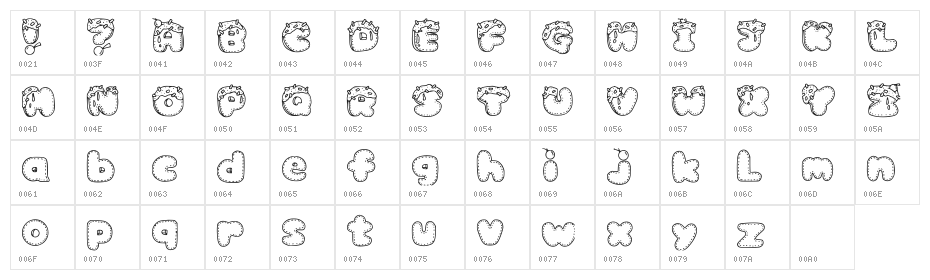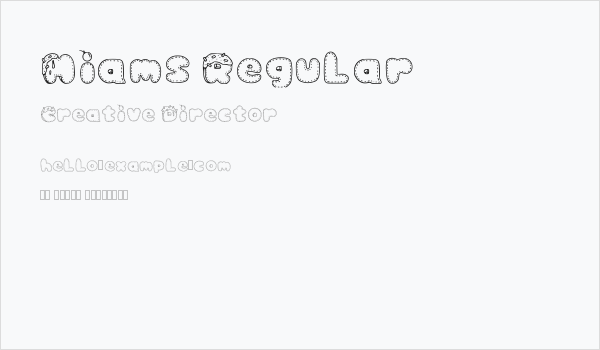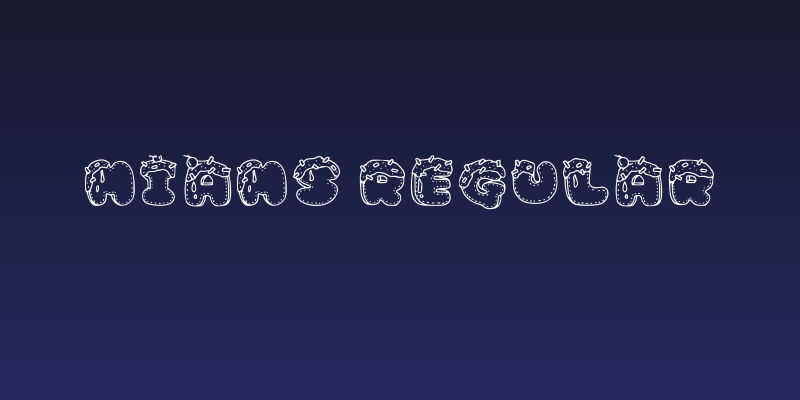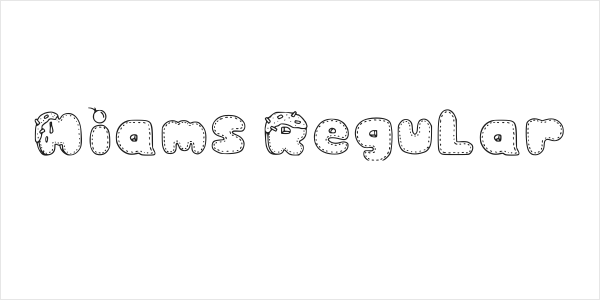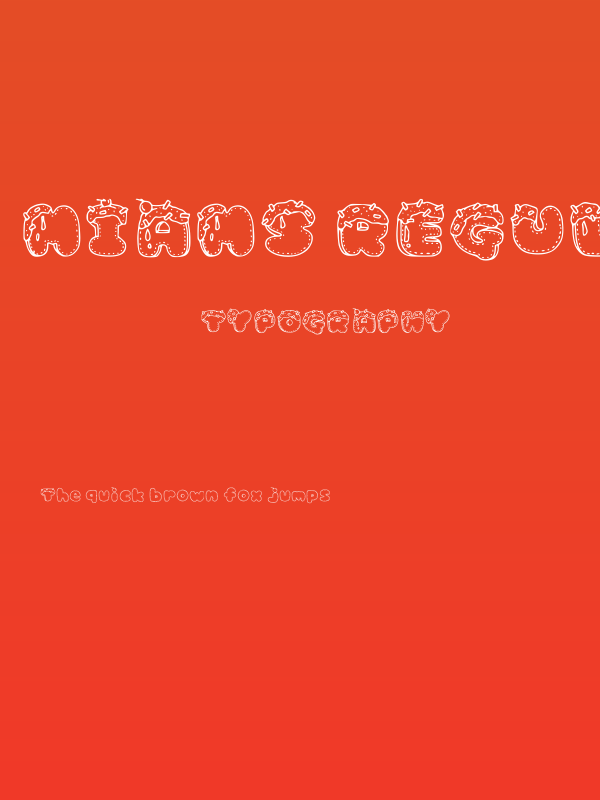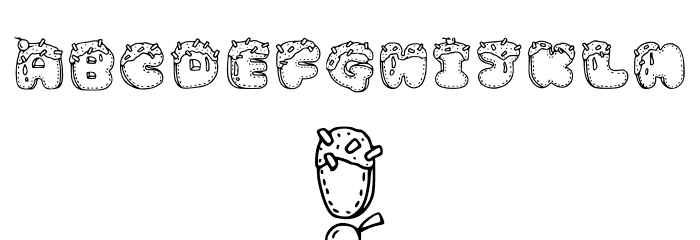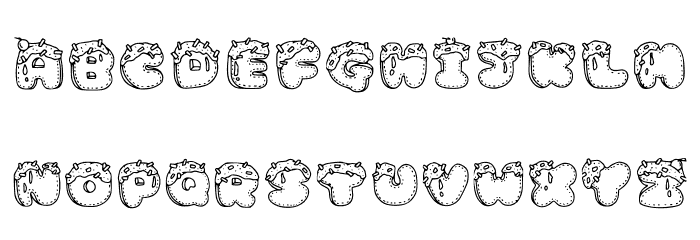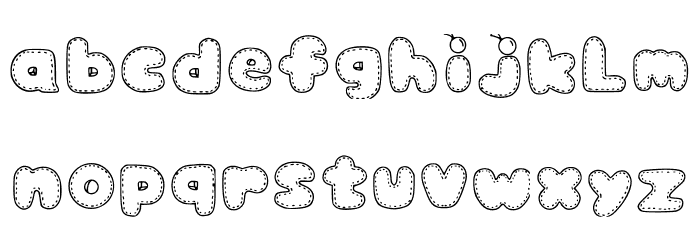
Miams Regular Font
Miams Regular Description
A playful, decorative font with a whimsical, cartoonish style featuring dotted outlines and quirky embellishments.
| Overall Style | Playful, Cartoonish |
| Proposed Projects | Children's books, playful branding, party invitations. |